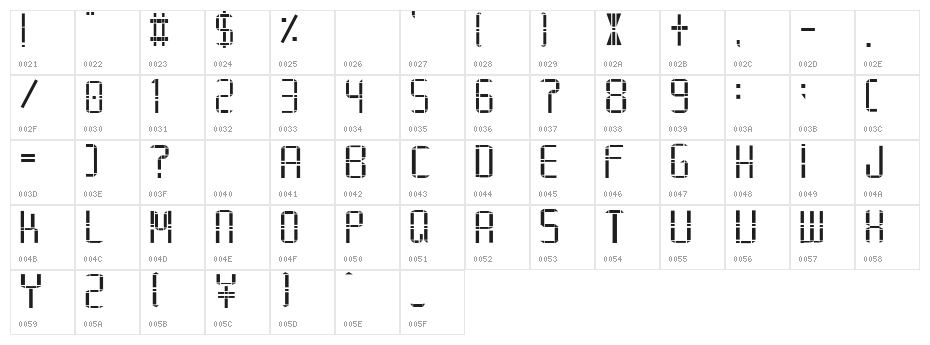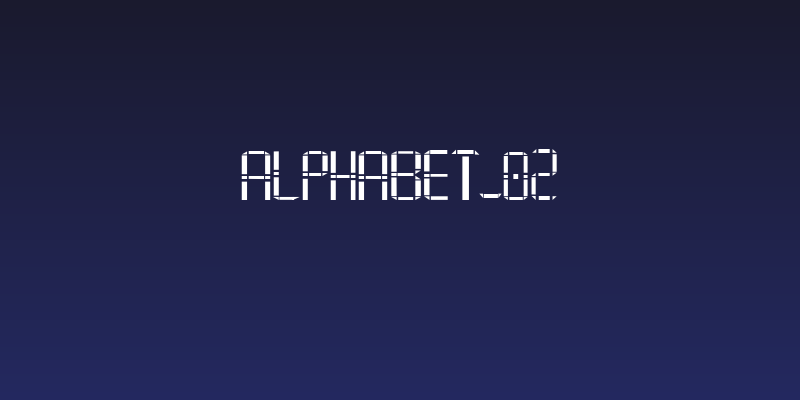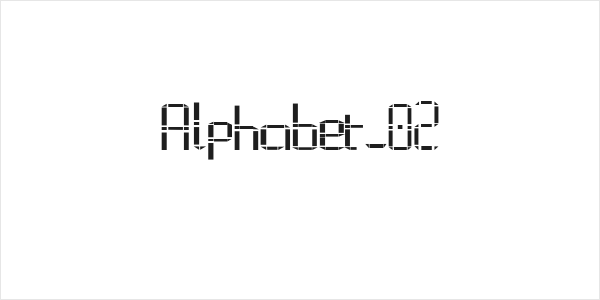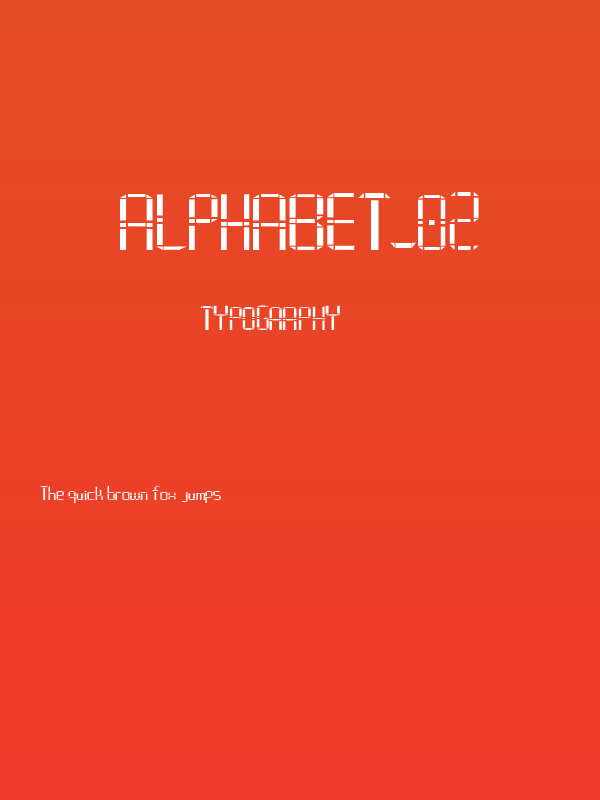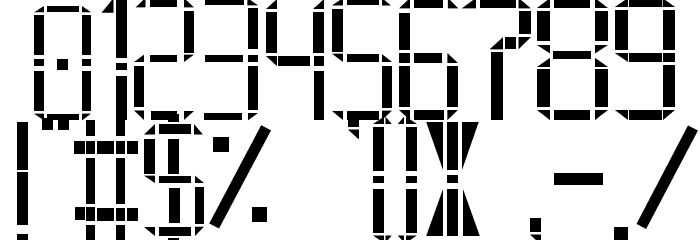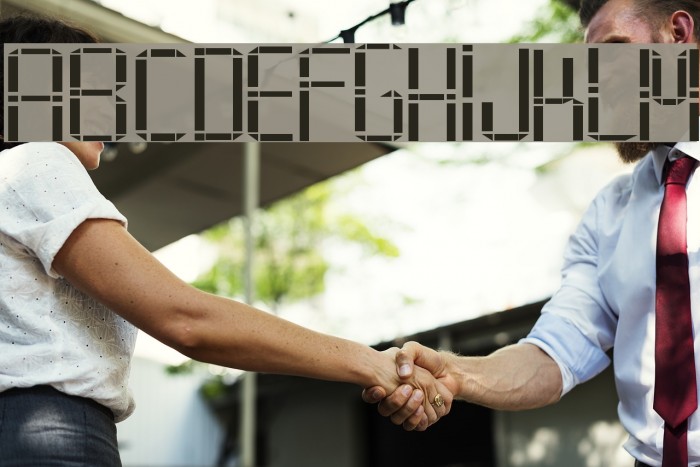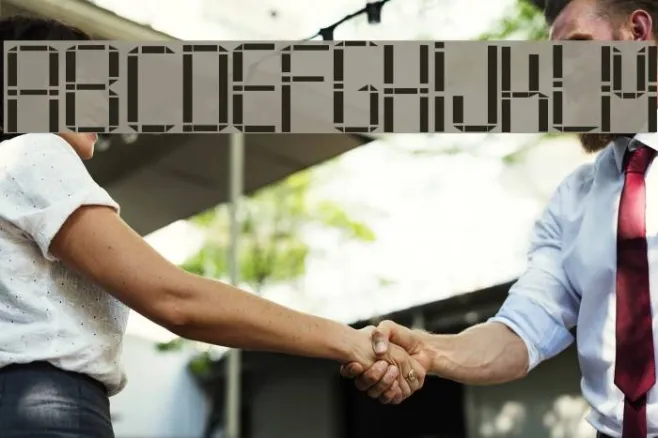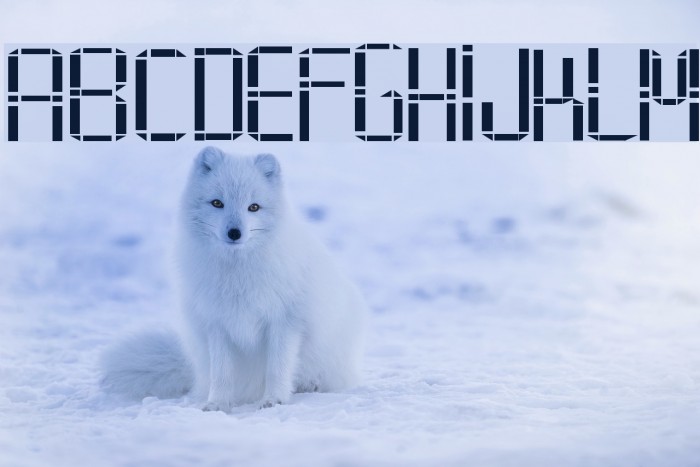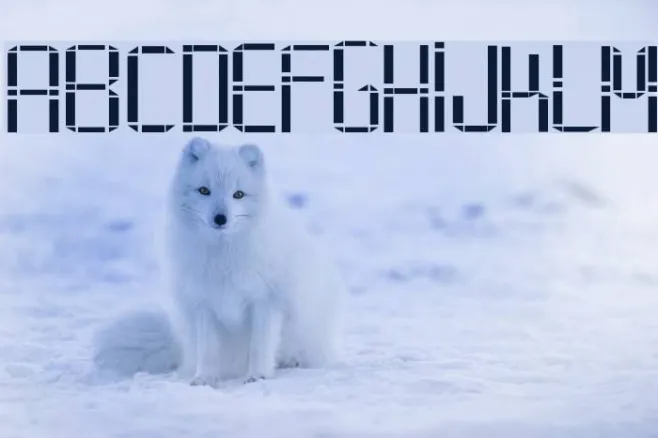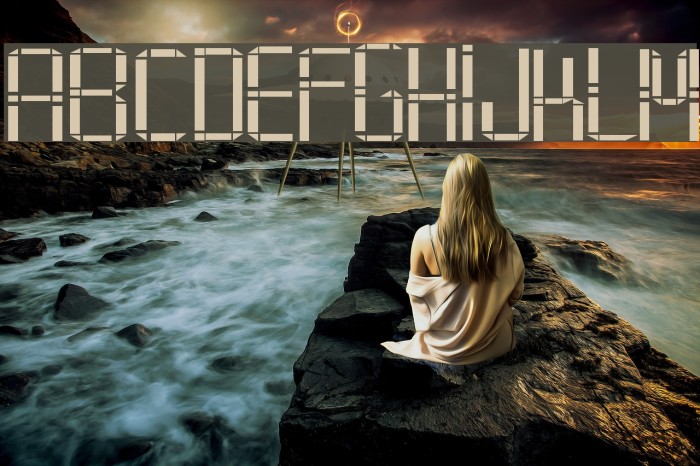
Alphabet_02 Font
This font features a highly geometric and modular design, characterized by its use of straight lines and sharp angles. Each character is constructed with a series of rectangular blocks and diagonal cuts, creating a digital, futuristic appearance. The font maintains a consistent height across all characters, with uniform spacing that gives it a structured and orderly look. The uppercase and lowercase letters share a similar design ethos, with the lowercase being slightly more compact. Numerals and special characters are designed to match the overall aesthetic, ensuring a cohesive visual style. This font's unique design makes it stand out, ideal for projects that require a modern and tech-inspired look.
| Proposed Projects | Ideal for tech branding, digital interfaces, video game design, and futuristic-themed posters. |